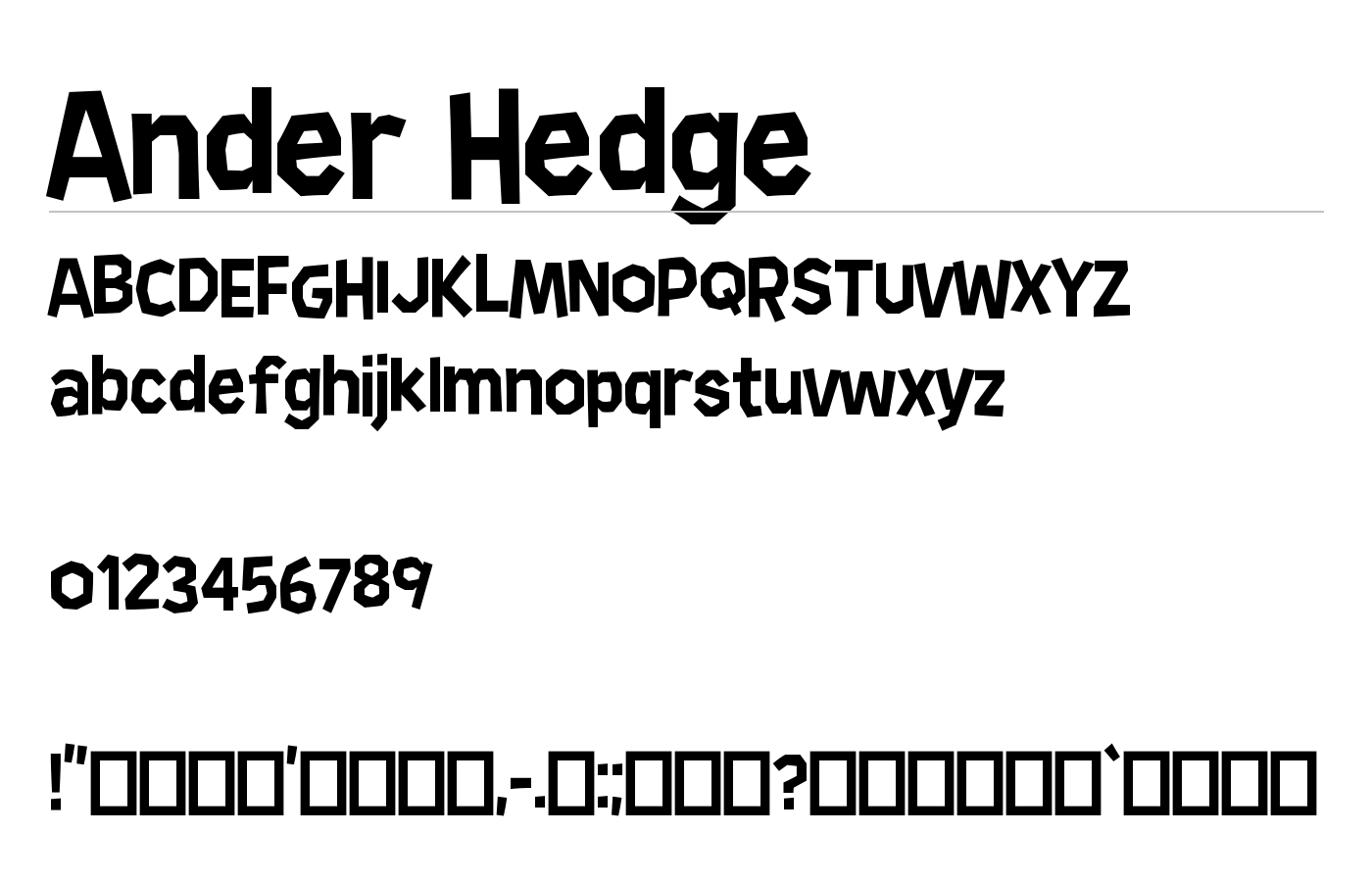
Ander Hedge is a bold, geometric sans serif font with a playful, hand-crafted feel created by its irregular angular shapes and slightly condensed letterforms. Its medium x-height and moderate stroke contrast lend it a quirky and modern personality that works well for eye-catching headlines, branding, and creative projects seeking a unique, informal vibe. This font shines in contexts like posters, logos, and editorial design where character and originality are key.
Ander Hedge Font
About Ander Hedge Font
| Font family | Ander Hedge Font |
| Designer | Jayvee D. Enaguas (GrandChaos) |